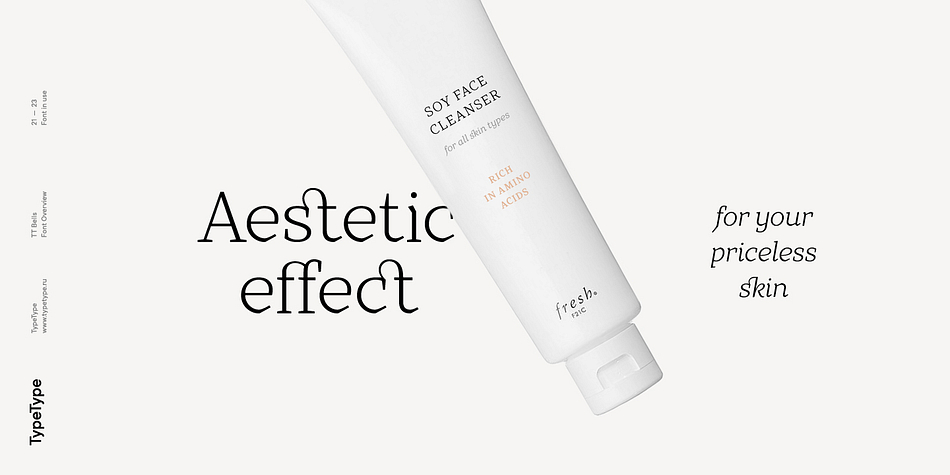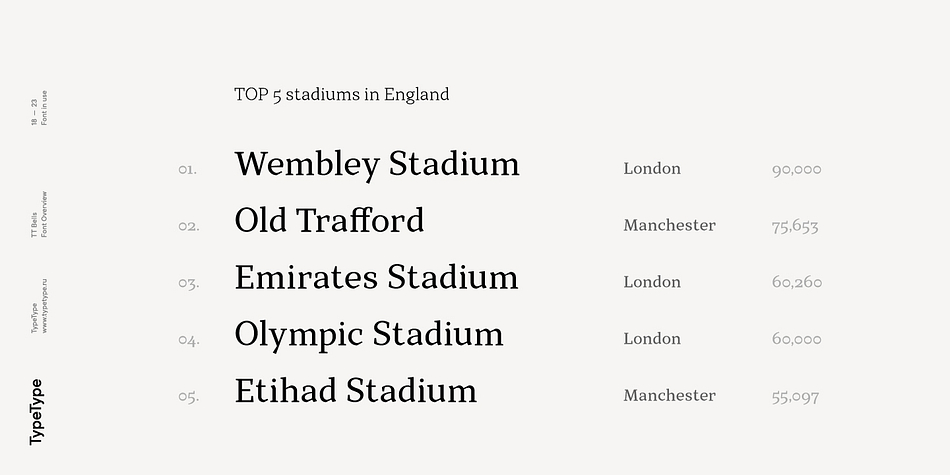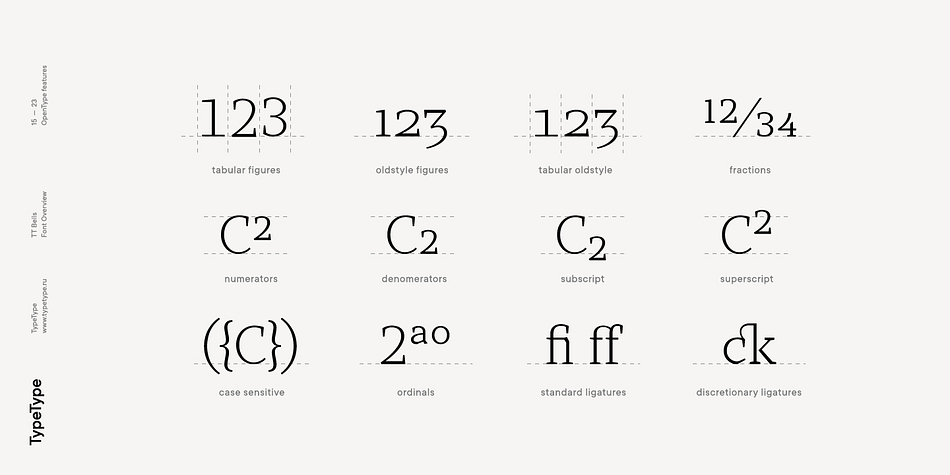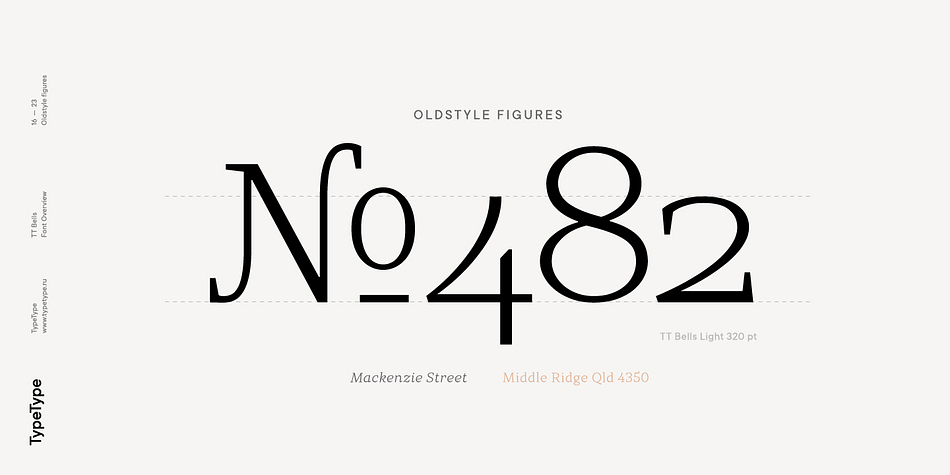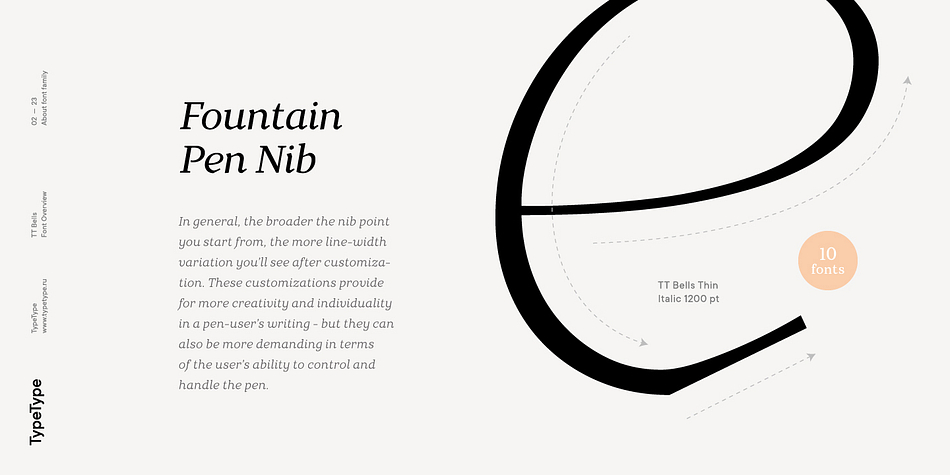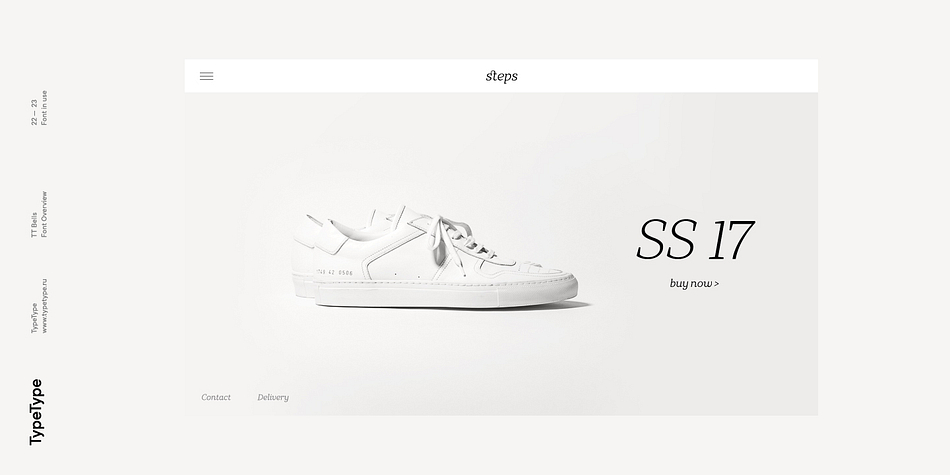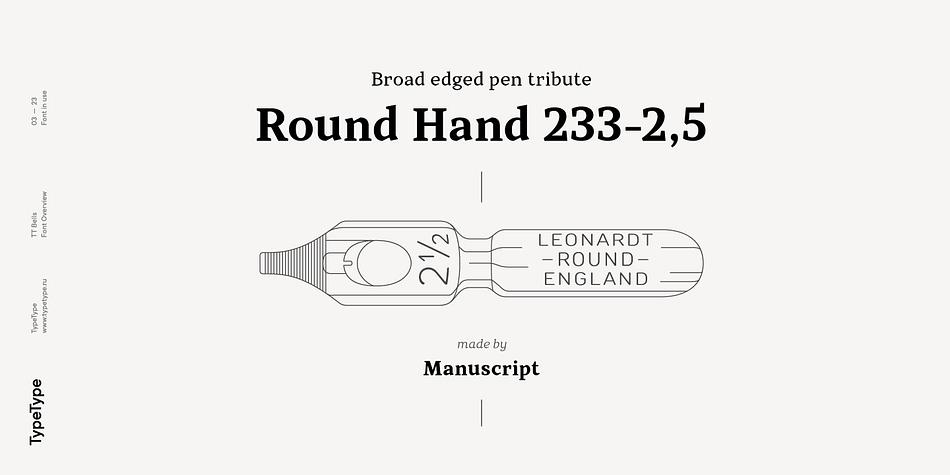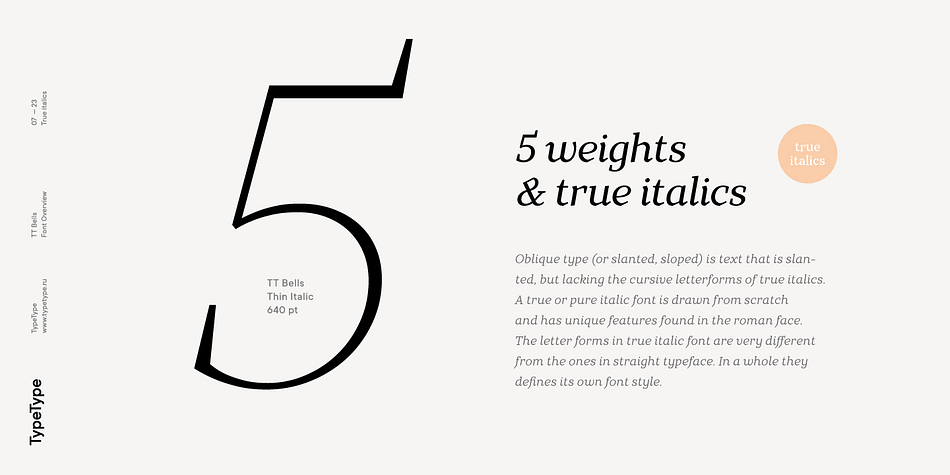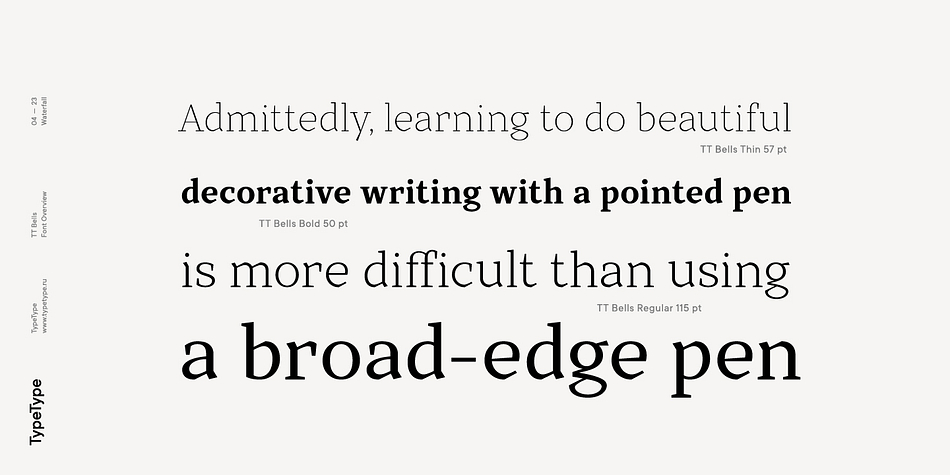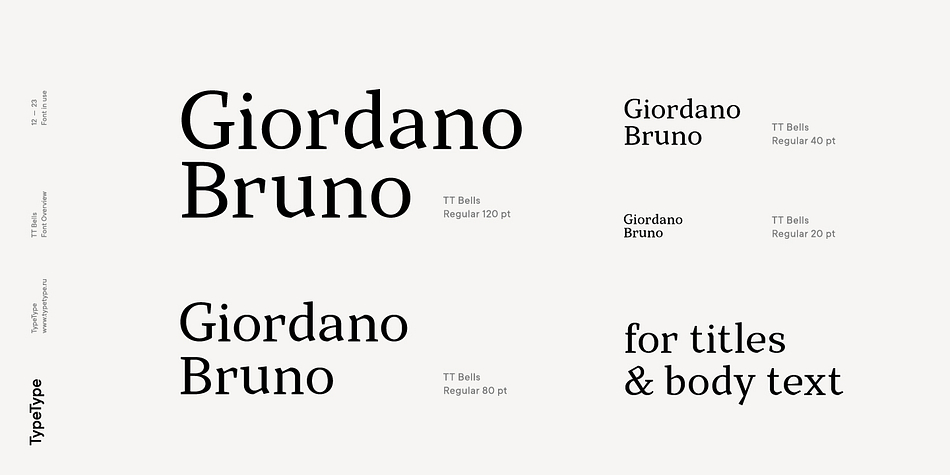
Designed by Ivan Gladkikh, TT Bells is a serif font family. This typeface has ten styles and was published by Typetype.
TT Bells combines the elegant softness of antiqua with a complex and daring temper reflected in straight stroke terminals and arrowheaded serifs. The family is based on broad nib, which was typically used for old style fonts and creates these hallmark terminals and serifs. We’ve taken the best from old style fonts created before the digital age and added sharp and contemporary geometric shapes to the traditional style. That’s how TT Bells refers the spectators and font enthusiasts to the origins and, at the same time, reminds us that we live in the digital era when geometry and screens rule the world.
TT Bells is suited for different types of text – from the shortest headings to large text arrays. When the font size is decreased, the boldness and sharpness of the font soften, it becomes more classic. The fontfamily is created according to the traditional TypeType formula (Thin, Light, Regular, Bold, Black & Italics)! We’ve also enabled the support of a broad number of OT features, which will help you widen the implementation range for this family: tnum, onum, pnum, numr, dnom, frac, case, ordn, subs, sups.